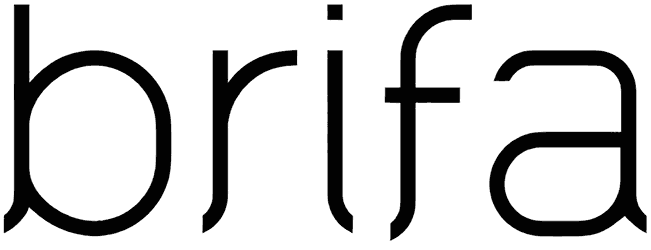
Brifa Font
A classic and modest face never gets outdated, and you can always count on it as an option on the table. As a minimalist font with its chic vibe, Brifa includes two weights, but it doesn’t have numerals and punctuation. You can set this general-purpose font on many designs with various subjects, such as branding, advertisements, banners, and other kinds of stuff.